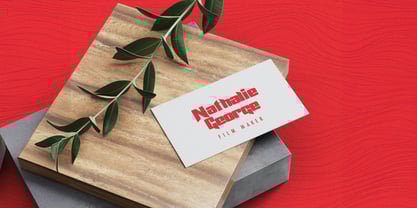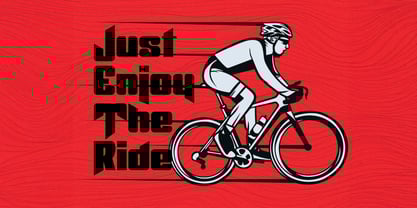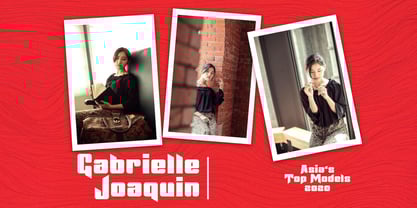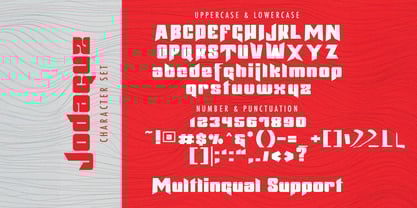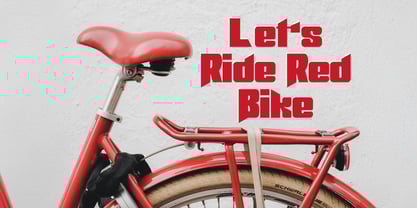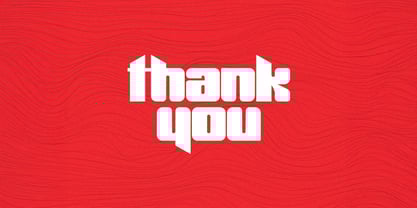
Die Schriftfamilie Jodaguz wurde von Virgiawan Listanto entworfen und von Stringlabs Creative Studio veröffentlicht. Jodaguz enthält 1 Stile. Mehr über diese Familie
Elevate your designs with Jodaguz, a modern and bold display sans font that is perfect for making a statement. Jodaguz combines readability with a touch of elegance, offering a unique blend of strength and sophistication.
Jodaguz